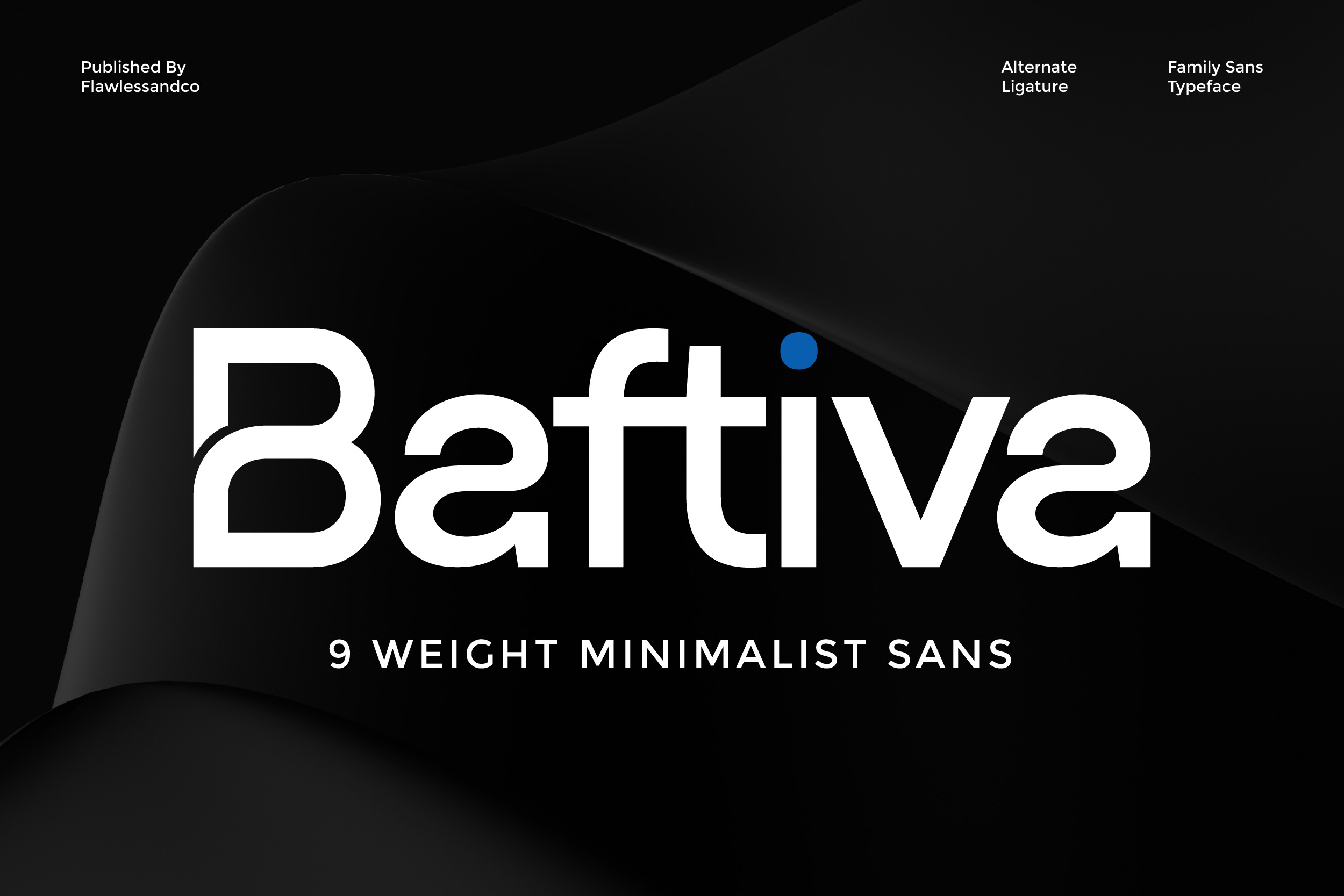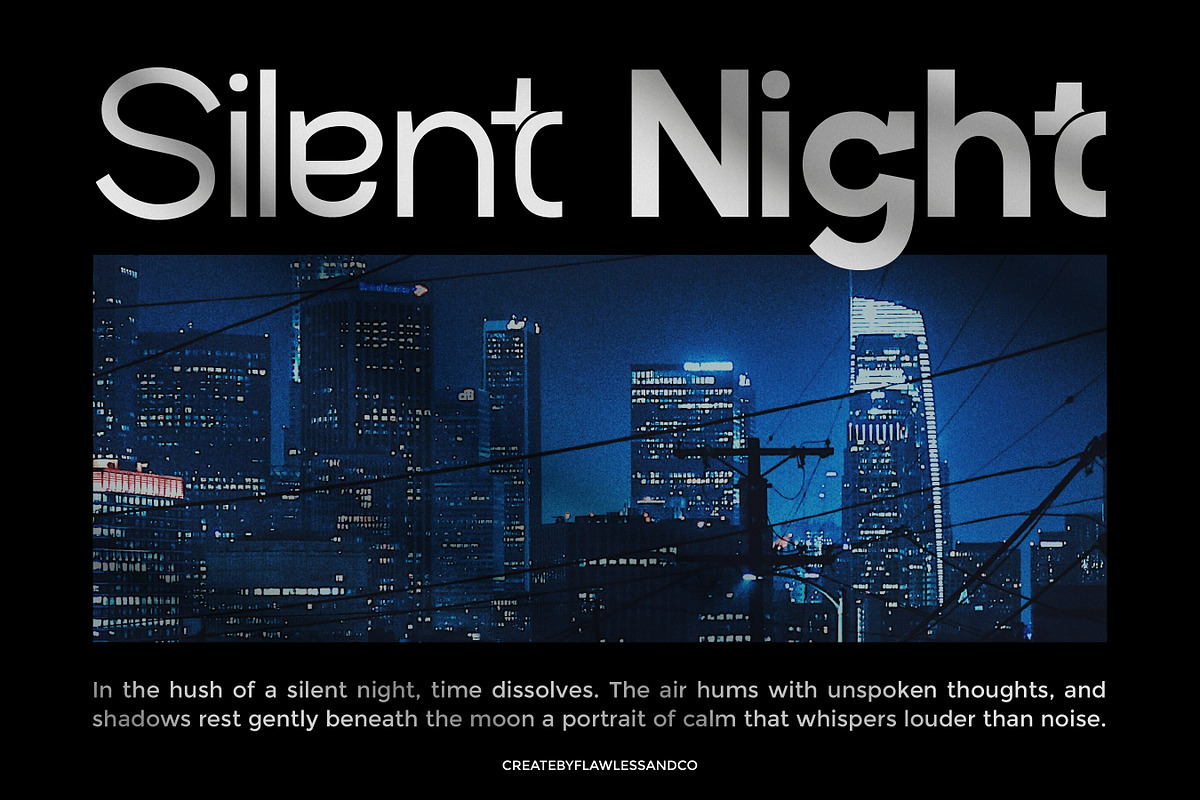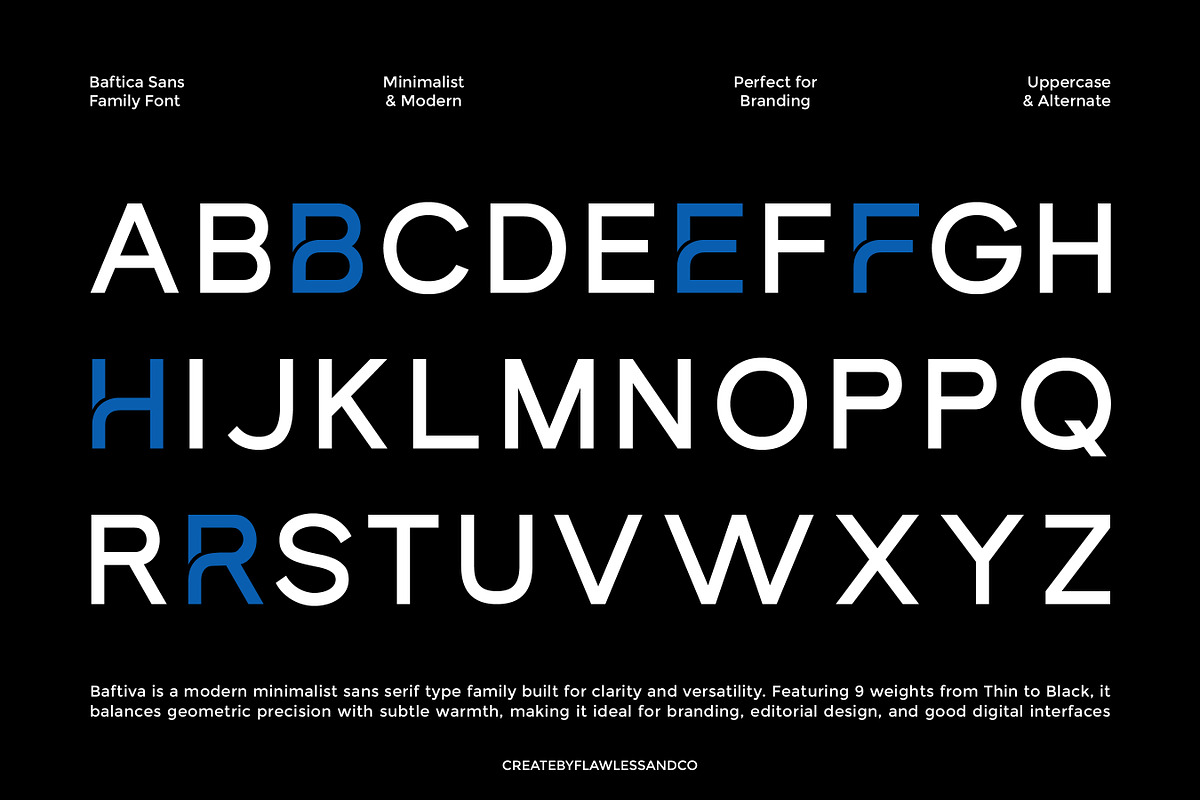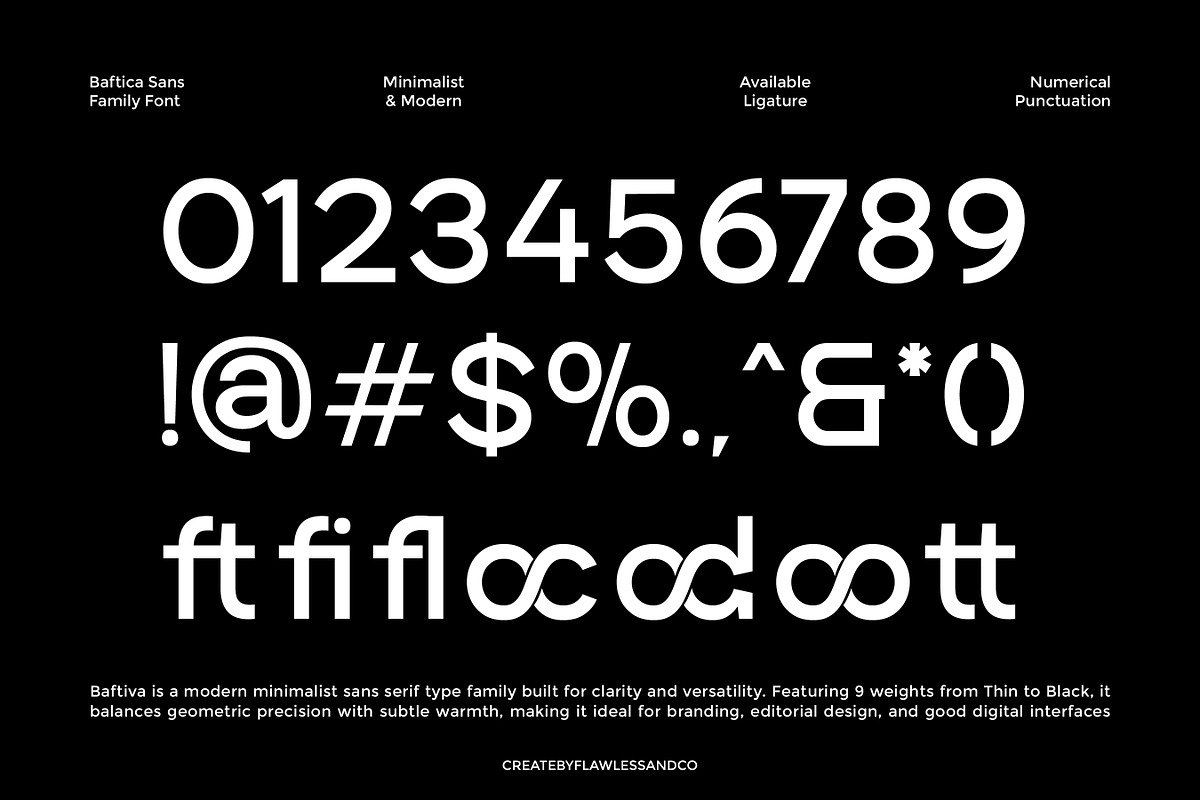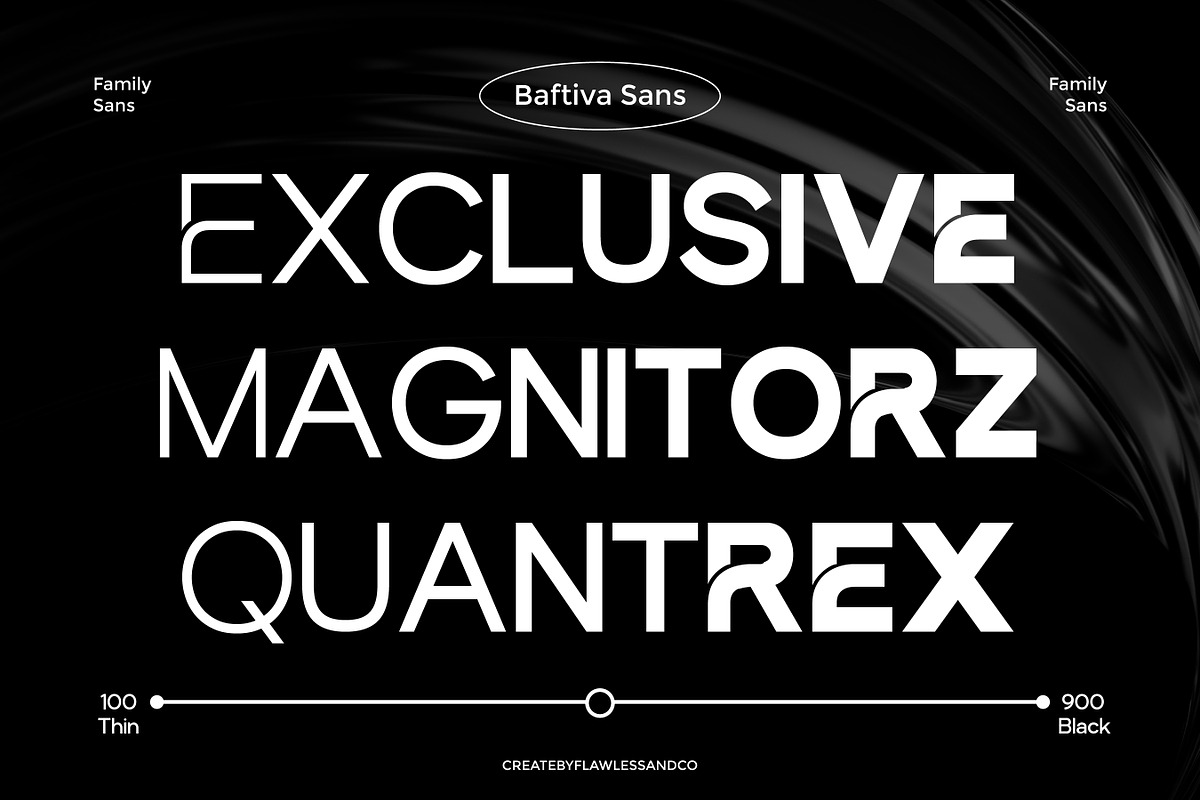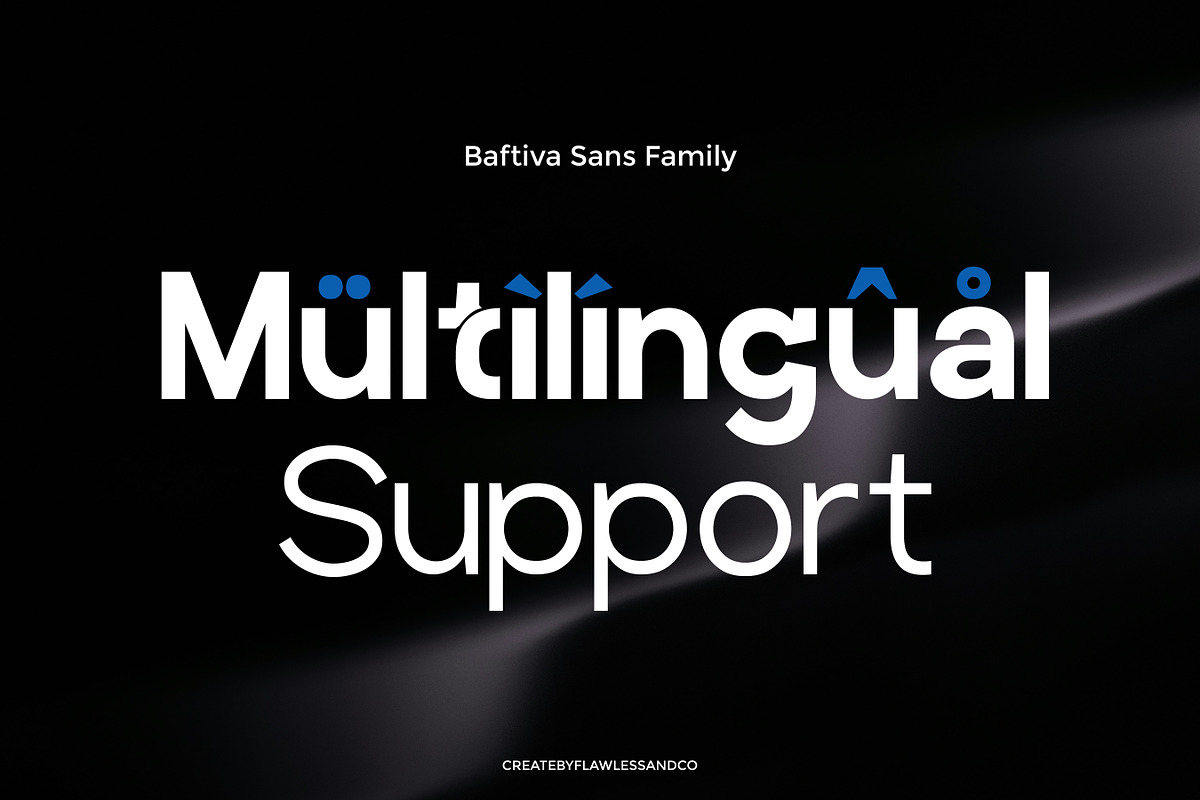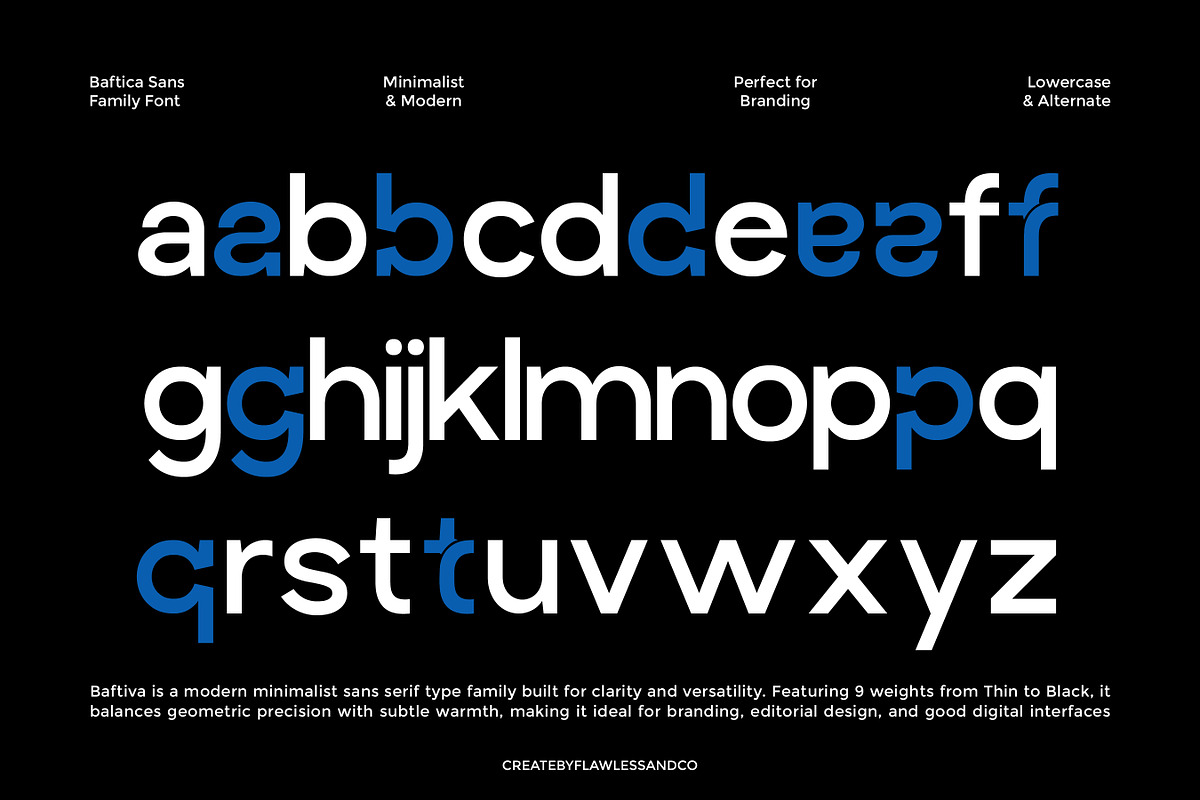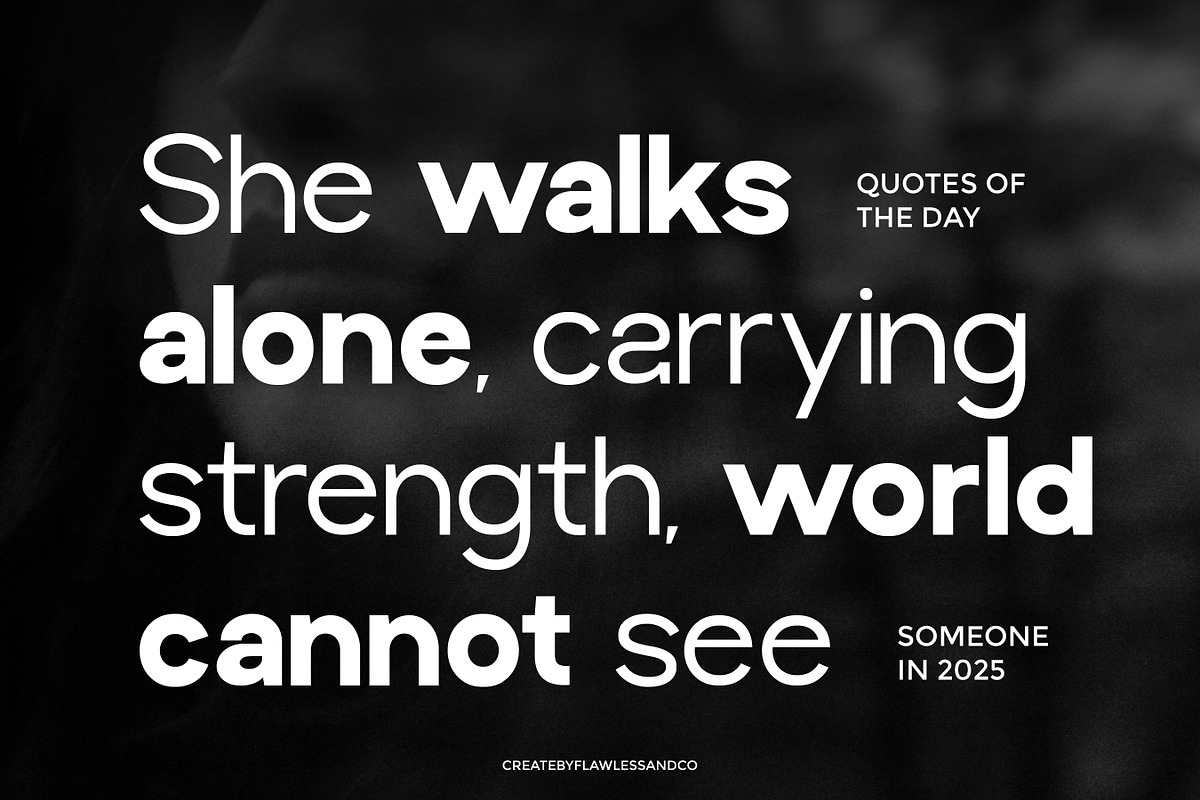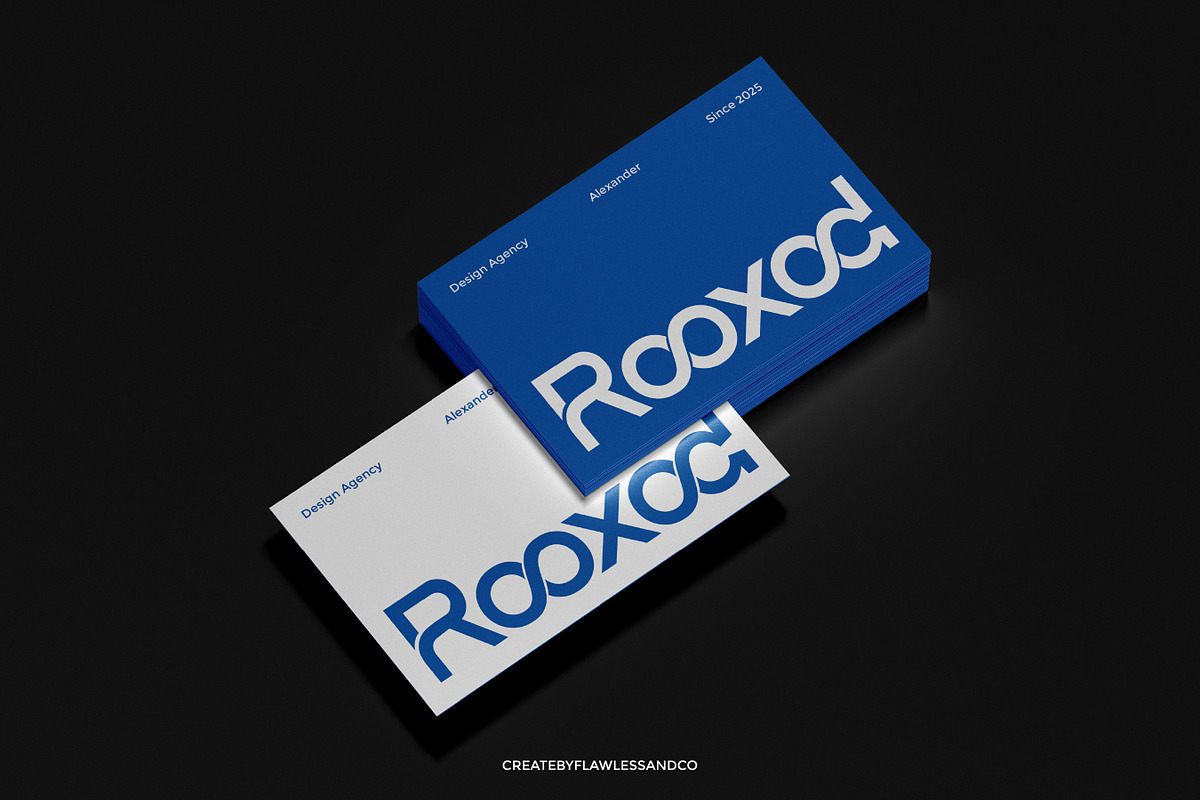
Baftiva - Sans Serif Family Font
Baftiva - Family Sans Serif Font
Baftiva is a modern family sans serif typeface designed with versatility and clarity in mind. Featuring 9 carefully crafted weights, from thin to black, Baftiva delivers balance and precision across every character — making it a perfect choice for designers who value clean structure and strong visual identity. With its minimalist design, smooth curves, and subtle geometric influence, Baftiva embodies both professionalism and creativity.
Who Should Use Baftiva?
Baftiva is perfect for designers, creative professionals, and brands who value clean, modern, and flexible typography. It’s an ideal choice for those who want to build strong visual identities with consistency and style across multiple applications. From corporate teams to independent creators, Baftiva suits anyone aiming for a polished and professional look.
A Must-Have Font for “Brand and Logo” Creators and Designers
Baftiva is a must-have typeface for brand and logo creators who seek precision, modern aesthetics, and versatility in one package. With its clean geometric structure, professional balance, and minimalist touch, Baftiva helps designers craft logos and brand visuals that feel timeless yet distinctly modern.
Why Choose Baftiva for “Brand and Logo” Projects?
Baftiva is designed to elevate brand and logo projects with its clean, balanced, and contemporary sans-serif style. Each letterform is crafted with precision, ensuring clarity and elegance at any scale—from digital interfaces to print materials. Its nine versatile weights and unique alternates give designers the freedom to explore endless creative directions while maintaining a cohesive, modern aesthetic.
Suitable For:
- Brand identity and logo design
- Corporate and business presentations
- Web and app interfaces
- Editorial and magazine layouts
- Product packaging and labels
- Startup and tech branding
- Marketing materials and advertising campaigns
- Social media graphics and visual content
- Clean typographic posters and signage